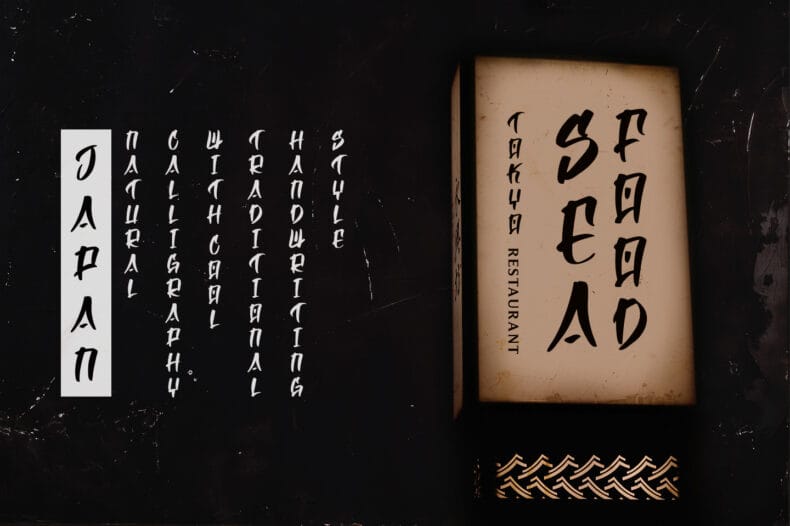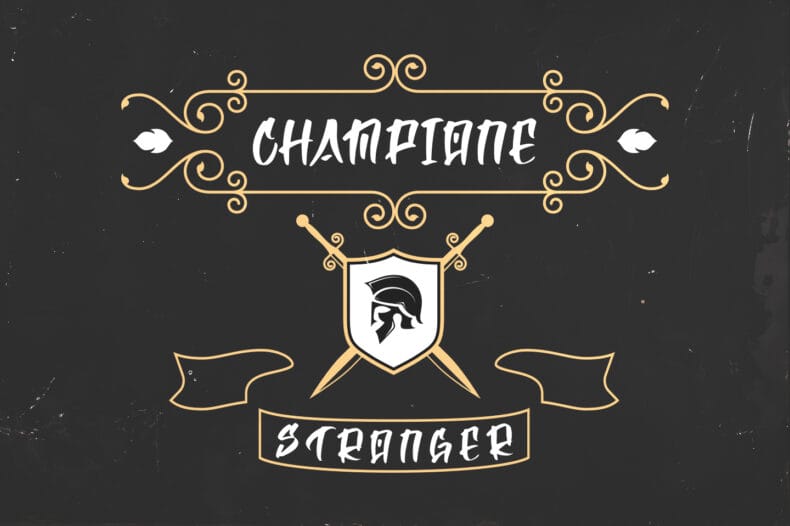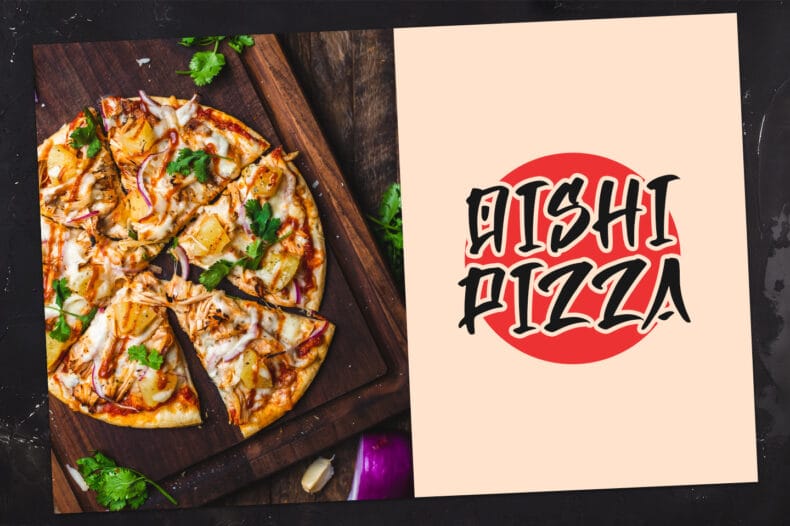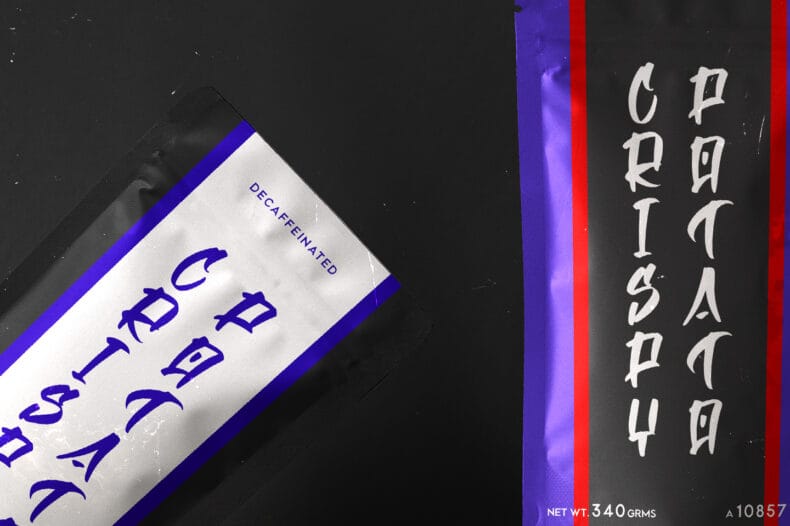
Makise, Japan Calligraphy Style Typeface
Makise is an all caps font created with natural handwriting brush that designed to be close to Japanese calligraphy style. This font very useful for multipurpose projects such as logo, branding, poster, headline, and many more. This font is easy to use, you don’t need special design software to access all characters. It also support standard multilingual characters.